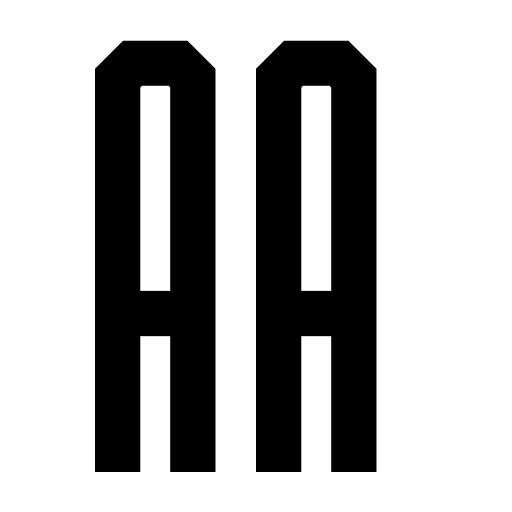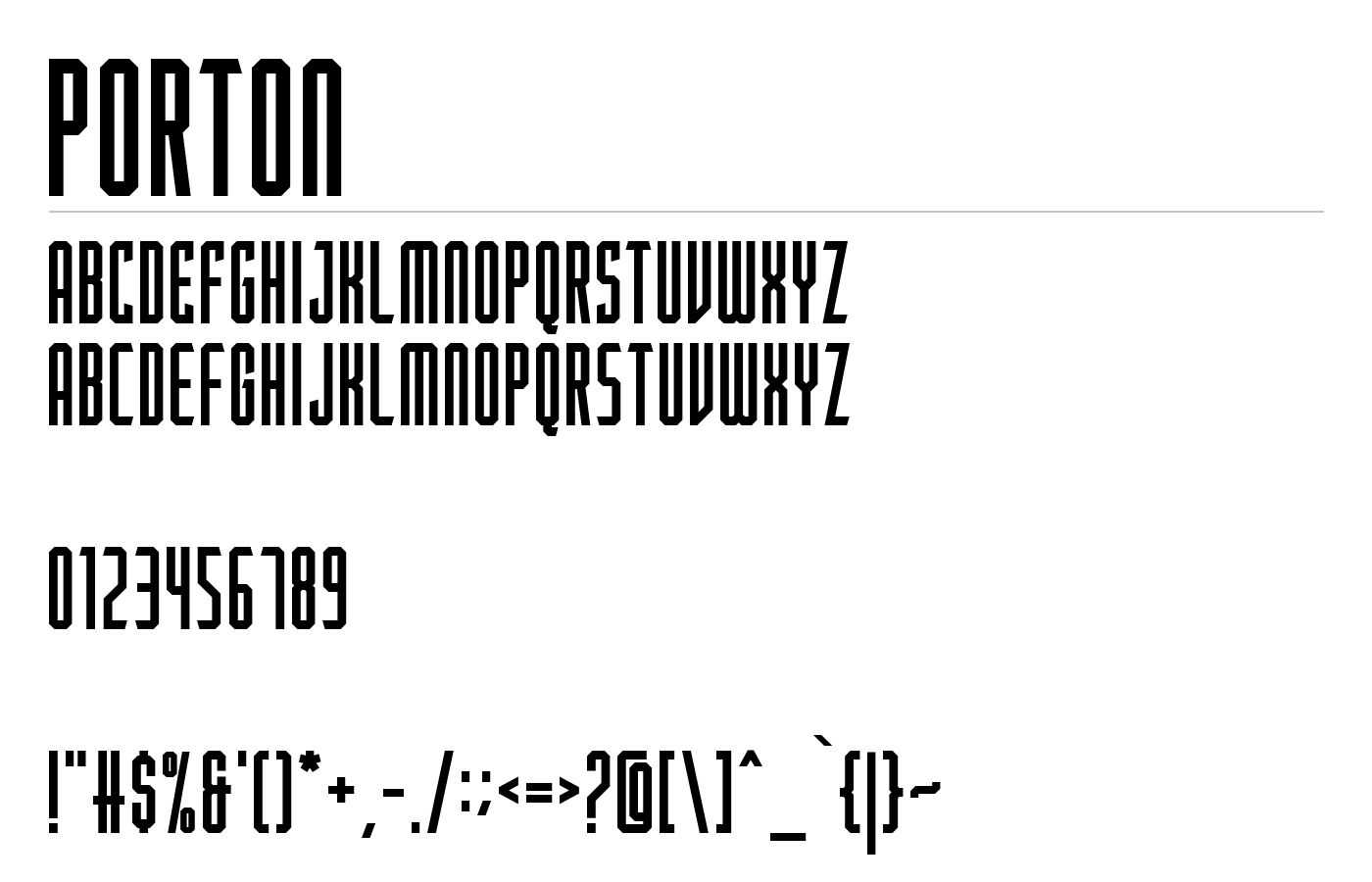
Porton Condensed is a bold, narrow sans serif font characterized by its tall, geometric letterforms and sharp, angular edges. Its condensed design makes it ideal for impactful headlines and branding projects where space is limited, while its modern, confident style communicates strength and clarity effectively. This font works well in editorial layouts, logos, and posters that require a striking, contemporary appearance.
Porton Condensed Font
About Porton Condensed Font